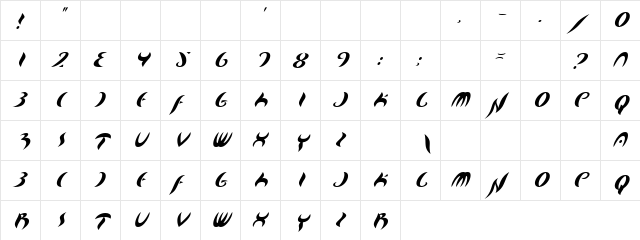
Map Of You Regular
Design Context for Map Of You Typeface
Map Of You is a composed and adaptable typeface that performs quietly and consistently across a wide range of design contexts.
Pro Tip: Pair Map Of You with a font of contrasting weight or personality to build a more expressive typographic hierarchy.